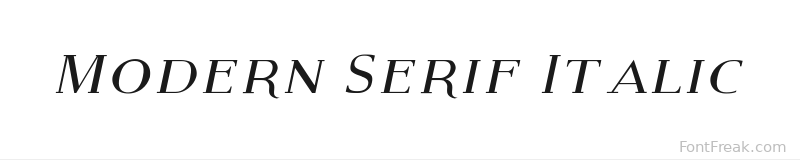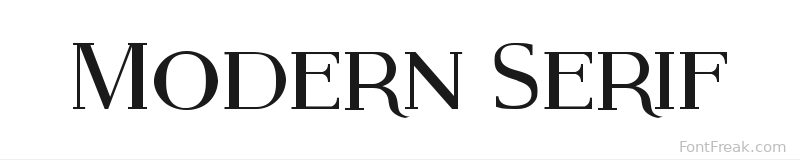
Modern Serif
Modern Serif Italic
Modern Serif, designed by Galdino Otten Fonts in 2015, is a striking serif typeface that merges contemporary aesthetics with classic design elements. This font features a balanced stroke weight, offering a clean and refined appearance that enhances readability. The contrast between thick and thin strokes adds a sophisticated touch, making it ideal for various design projects. The spacing is thoughtfully executed, providing a pleasant flow that guides the reader's eye effortlessly across the text. Decorative elements are minimal yet purposeful, adding just enough flair to elevate any layout without overwhelming it.
The versatility of the Modern Serif font makes it perfect for a range of applications. It can be used effectively for wedding invitations, where its elegance can convey romance and sophistication. Additionally, it works well for movie posters, where boldness and clarity are essential for capturing attention. Restaurant menus can benefit from its refined appearance, providing patrons with an inviting reading experience. Content creators will find this font invaluable for blog headings and social media graphics, as it combines modern style with timeless appeal. The target audience includes graphic designers, small business owners, and anyone looking to enhance their visual identity with a touch of class.
What sets the Modern Serif font apart is its unique ability to blend modern design principles with classic serif characteristics. Its clean lines and balanced proportions create a harmonious look that resonates across various platforms and mediums. With a Modern Serif font free download available, designers can easily incorporate this exceptional typeface into their projects, ensuring that their work stands out while maintaining elegance and professionalism. Embrace the charm of Modern Serif and elevate your designs to new heights.